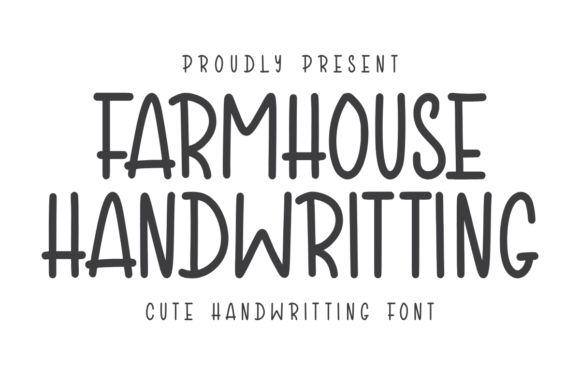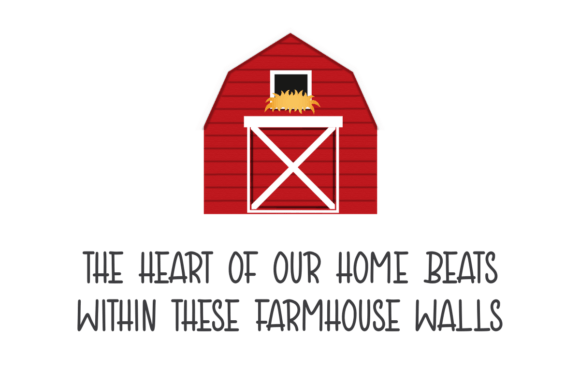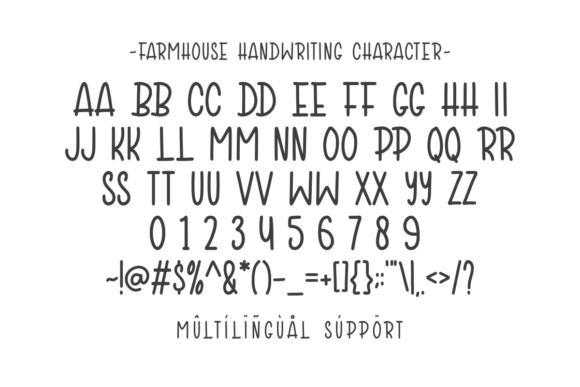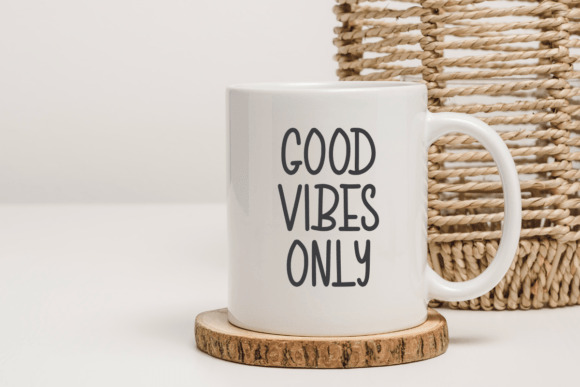
Farmhouse Handwriting Font
About the Farmhouse Handwriting Font
Add a touch of class to your work with the Farmhouse Handwriting Font, a truly exceptional typeface. Farmhouse Handwriting is a cute and playful handwriting font, perfect for planners, stickers, cards, quotes, and craft projects. Ideal for creative moms who love DIY, journaling, and Cricut crafts!
Its friendly, informal style makes it highly suitable for projects requiring a warm, approachable feel, such as children’s books, invitations, or social media graphics. It also works well on packaging for handmade goods or small businesses emphasizing a craft-based aesthetic. However, avoid using it for large blocks of text or body copy; its playful nature can hinder readability in extended passages. Similarly, it’s less effective in formal settings or professional branding.
Consider pairing Farmhouse Handwriting with a clean sans-serif like Open Sans for a balanced contrast, or a playful script like Pacifico for a cohesive, handwritten feel. For a more sophisticated look, a classic serif font like Playfair Display can add a touch of elegance.
The font’s core personality is undeniably cheerful and approachable, making it perfect for brands or projects that wish to convey a sense of warmth and handmade charm.